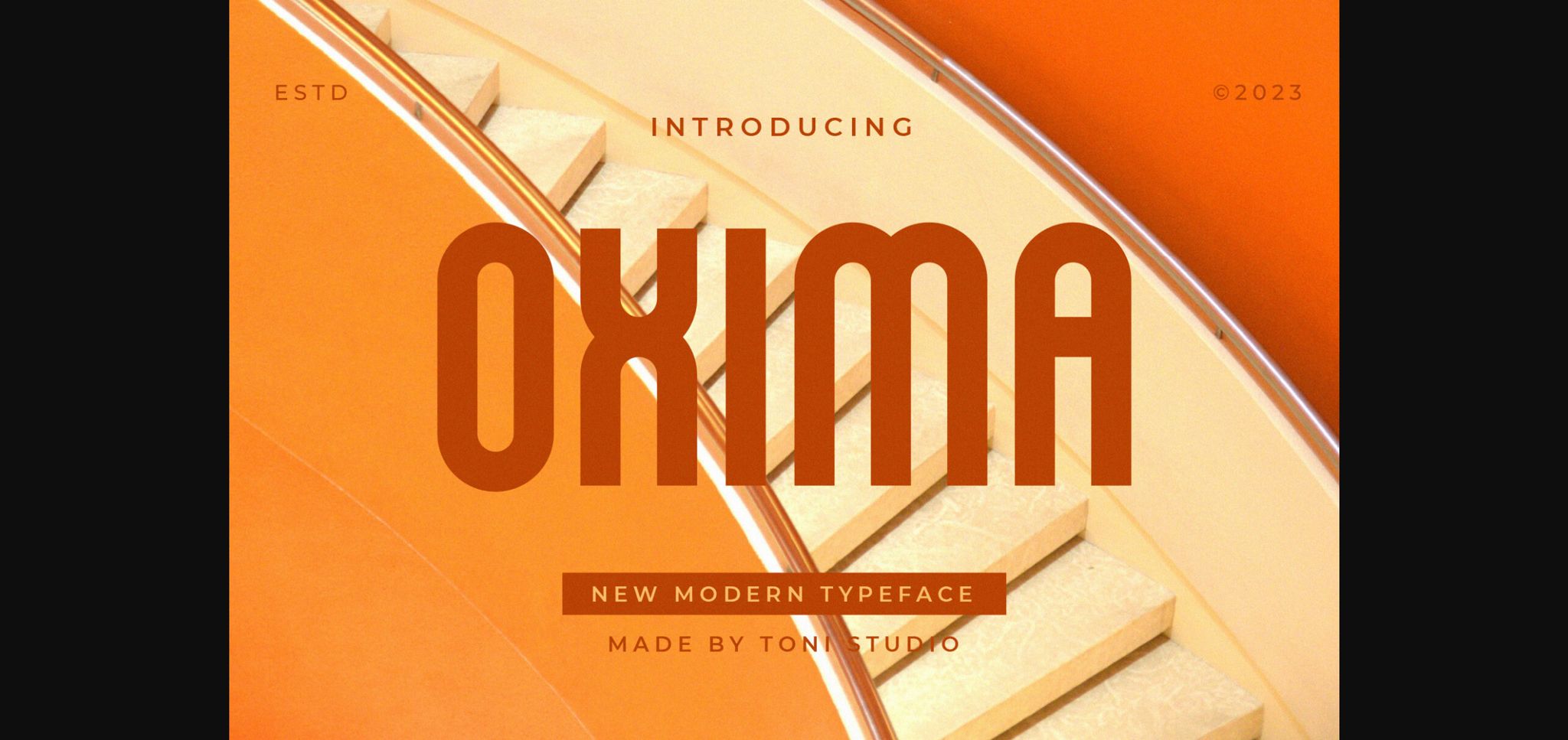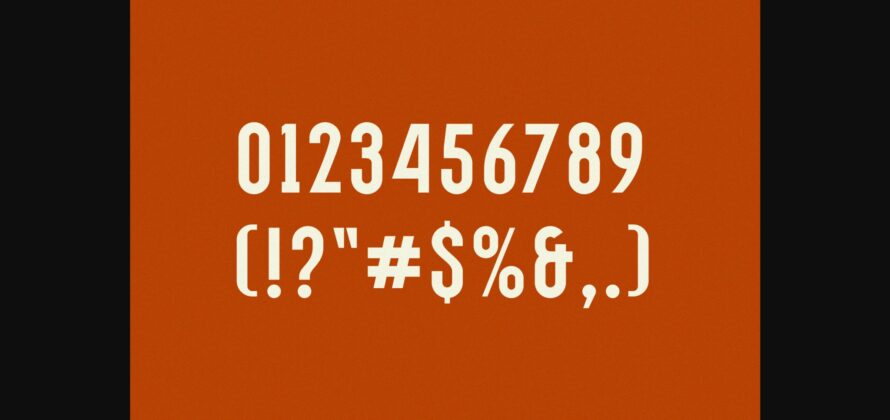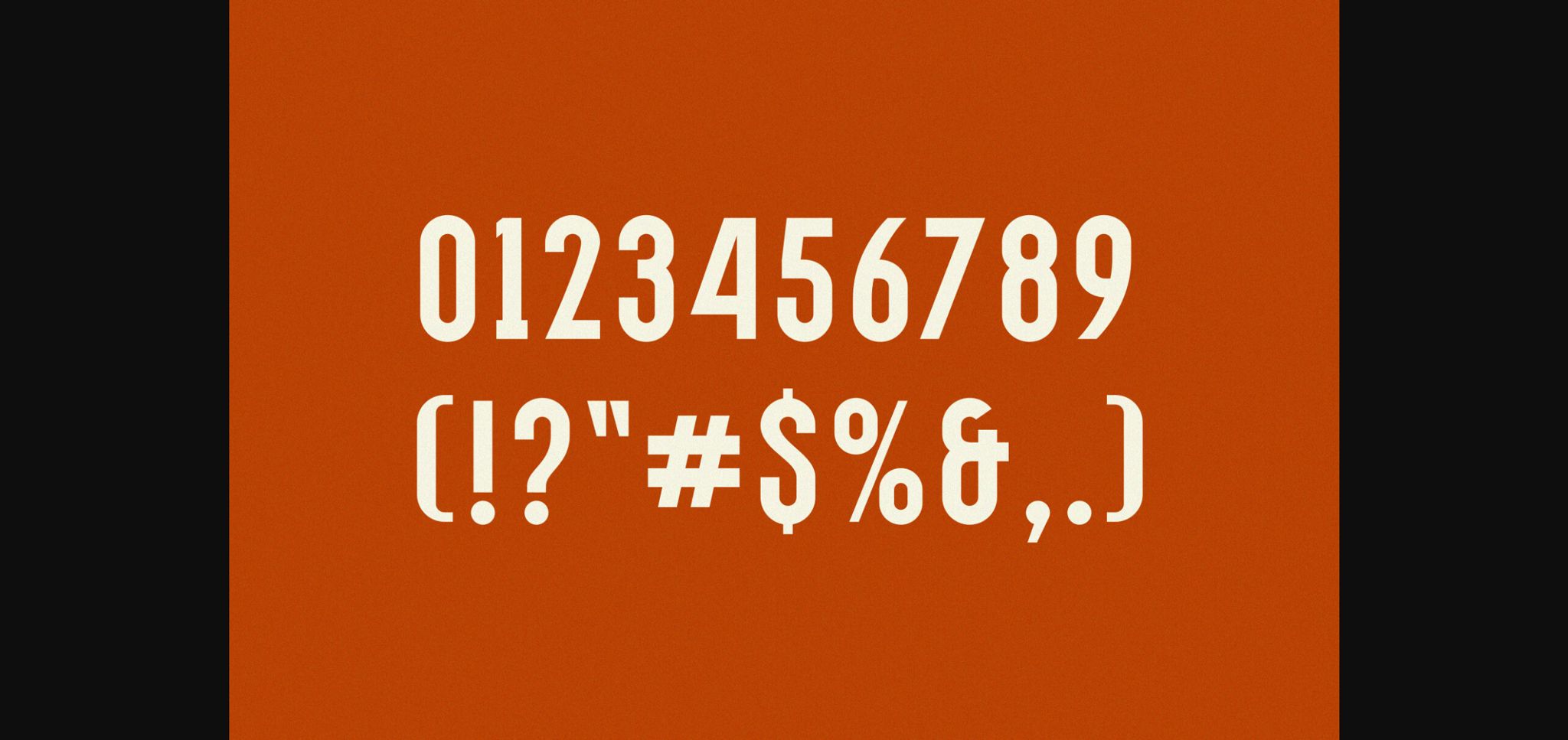
Oxima Font
About Oxima Font
A modern and authentic Sans serif font inspired by famous minimalist logos that is Perfect for professional needs and product branding. This font is suitable for any branding project such as template design, brochures, videos, advertising branding, logos, invitations, layout designs, elegant crafts, beauty designs and more.